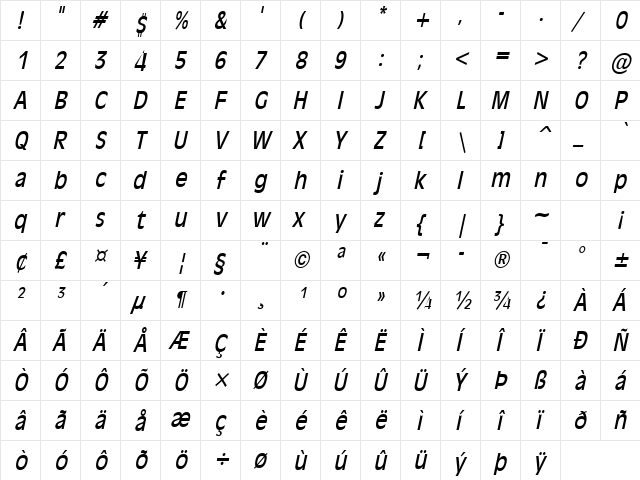
Antiqua 101 Condensed Italic Font Preview
Design Context for Antiqua 101 Condensed Typeface
Antiqua 101 Condensed is a composed and adaptable typeface that performs quietly and consistently across a wide range of design contexts. The slanted form adds forward momentum and visual energy. Its narrow stance lets it pack a punch even in space-constrained designs.
Pro Tip: Try Antiqua 101 Condensed for annotation and caption copy alongside an upright companion — the contrast in angle creates a dynamic but ordered typographic system.